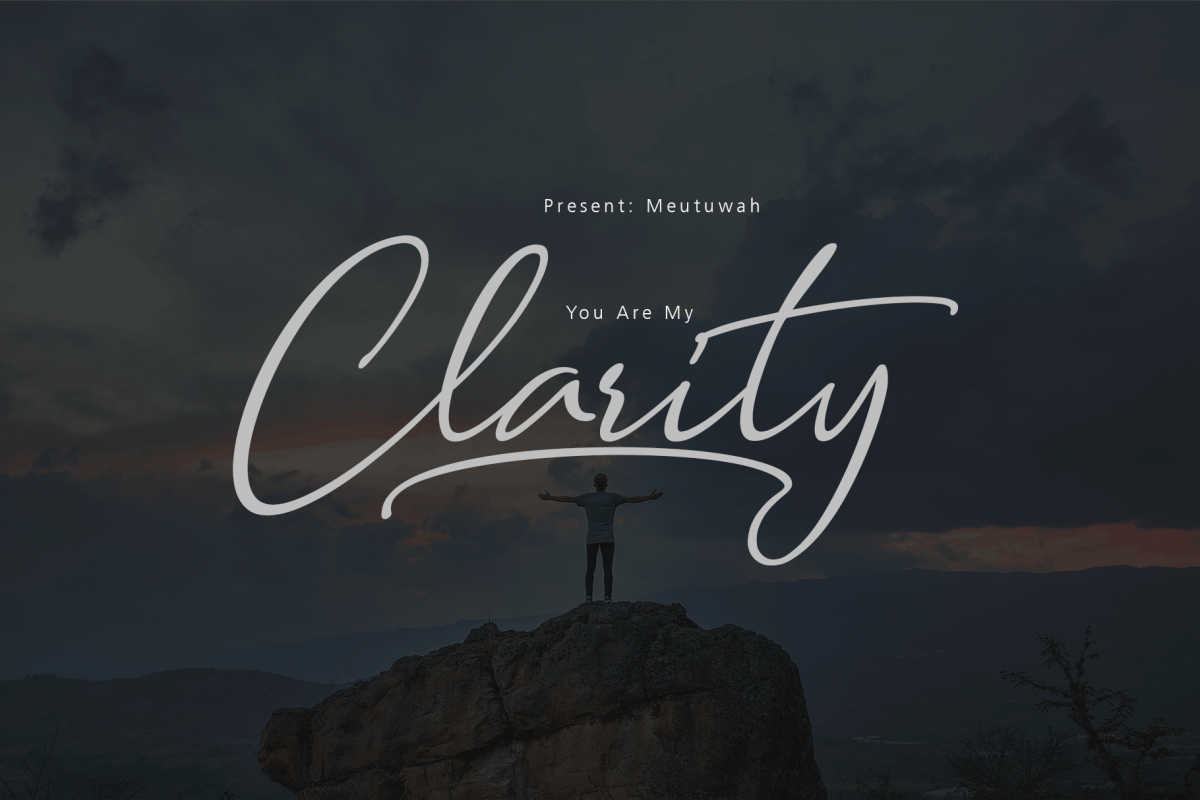
Clarity Script
Clarity Script is a stylish calligraphy font that features a varying baseline, smooth line, classic and interesting touch. Can be used for various purposes. such as headings, signature, logos, posters, t-shirt, signage, lable, wedding invitation, badges etc.